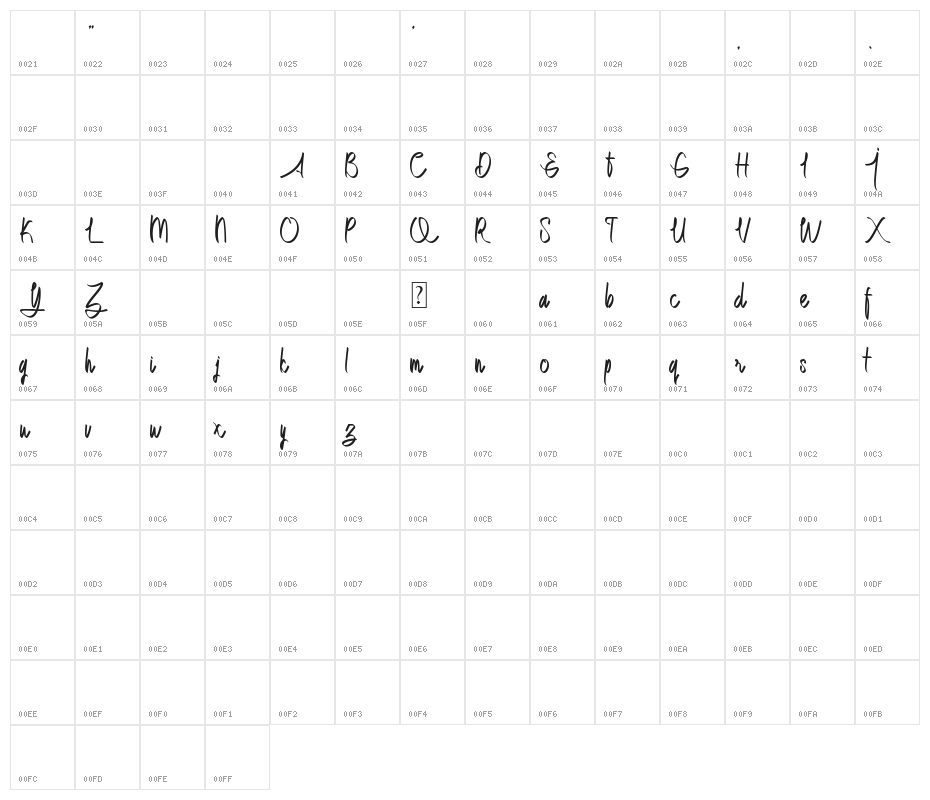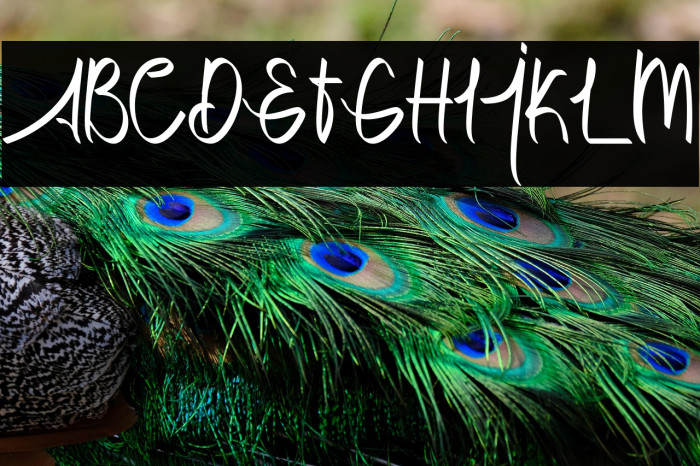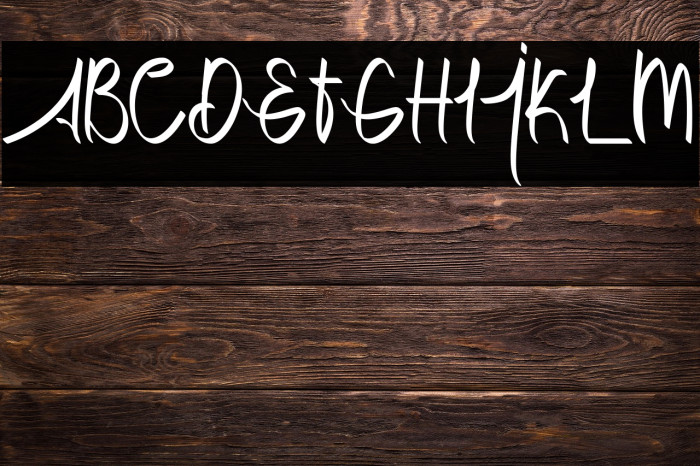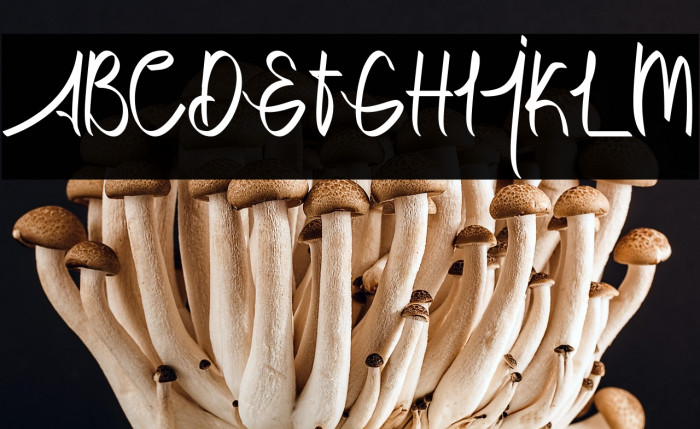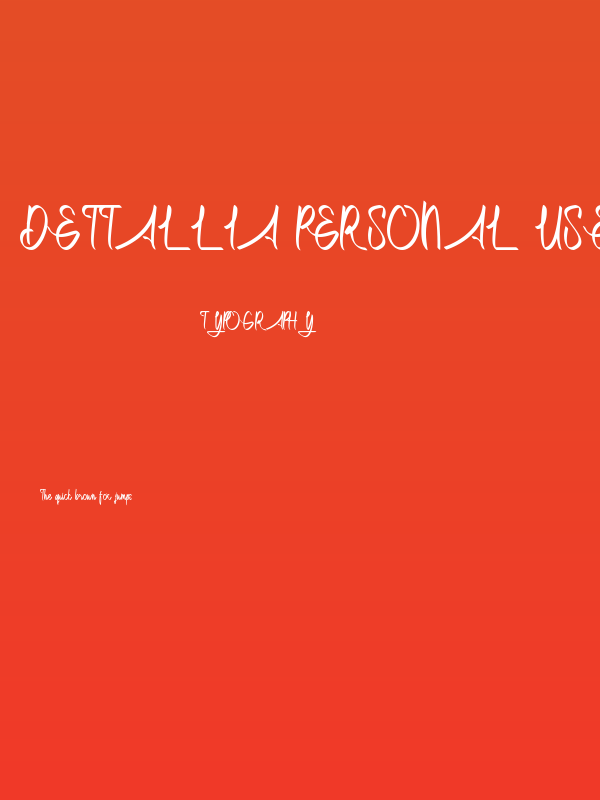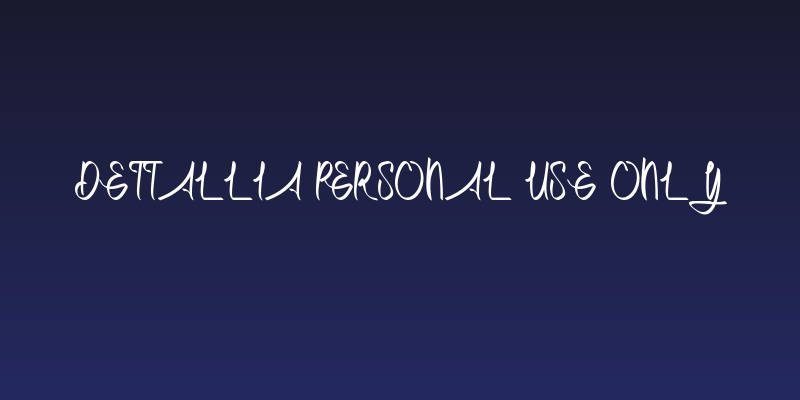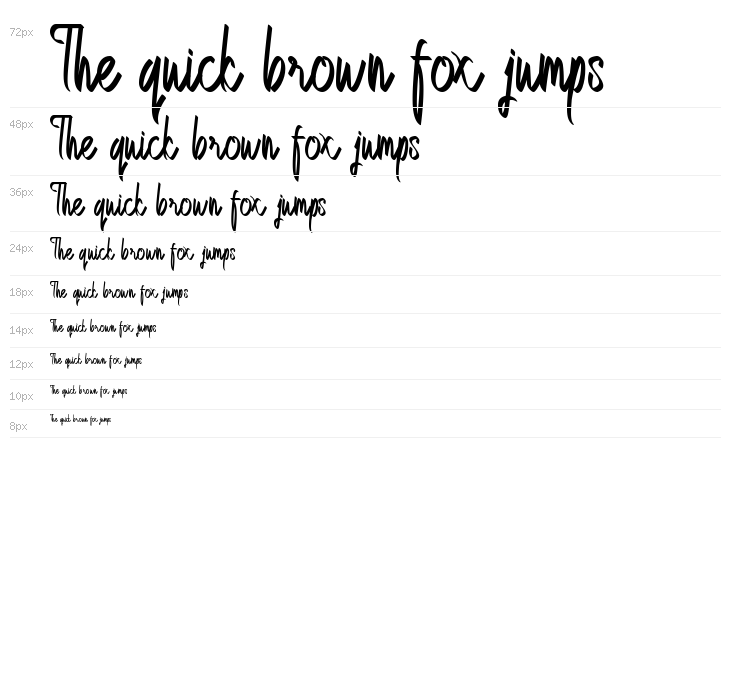
Dettallia Personal Use Only Font
Dettallia Personal Use Only Description
This font features an elegant and flowing script style, characterized by its sweeping curves and intricate letterforms. The uppercase letters are particularly ornate, with exaggerated loops and flourishes that give the font a sophisticated and artistic appearance. The lowercase letters maintain a more restrained yet still decorative style, ensuring readability while retaining the overall aesthetic. The font includes a variety of special characters, adding versatility for creative projects. Its unique design makes it suitable for projects that require a personal and artistic touch.
Use CaseLogos, Invitations, Artistic projects
Proposed ProjectsIdeal for wedding invitations, greeting cards, branding, and artistic projects.